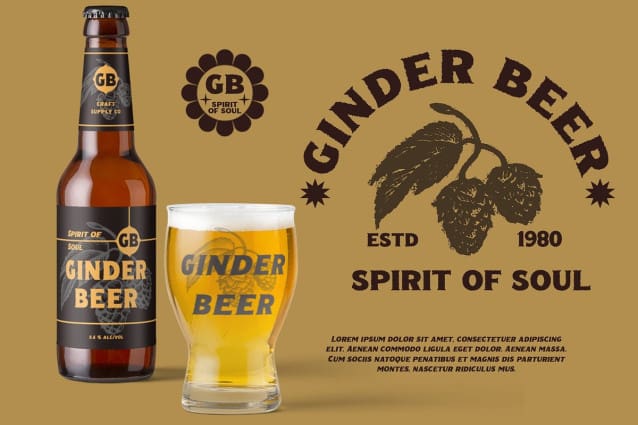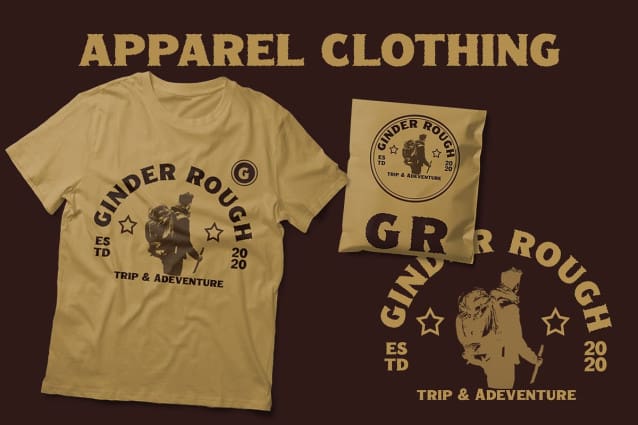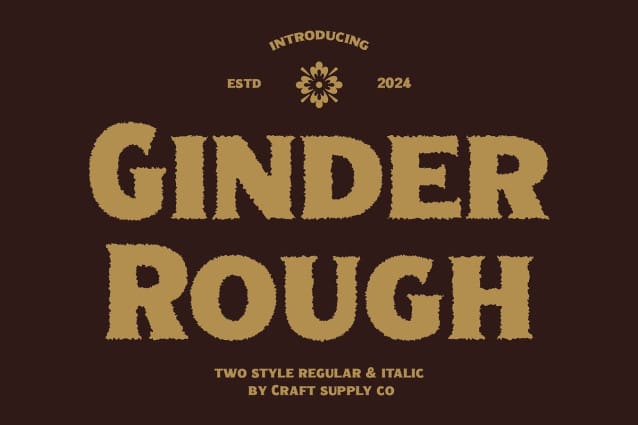
Ginder Rough Font
Ginder Rough Font: Vintage-Inspired Display Typeface. Bold Serif with Low Contrast Ginder Rough presents a bold serif design characterized by low contrast, lending it a robust and impactful appearance suitable for display purposes.
Rugged Charm with Rough Effects Infused with rough effects, This font exudes a rugged charm that evokes vintage aesthetics. Each letter bears subtle imperfections, adding character and authenticity to the typeface.
Vintage Vibes in Every Glyph Every glyph of Ginder Rough exudes vintage vibes, transporting viewers to a bygone era of classic typography. Its bold presence and rough texture make it an ideal choice for projects seeking a retro-inspired look.
Perfect for Vintage Display Projects Tailored for vintage-themed display projects, This font excels in various applications, including posters, packaging, and branding materials. Its bold and rough appearance ensures that your message is conveyed with impact and authenticity.
Embracing Vintage Authenticity This font captures the essence of vintage typography with its bold serif design and rough texture. Ideal for display projects requiring a touch of nostalgia, it adds character and authenticity to any design endeavor. Step into the world of This font and infuse your projects with timeless vintage charm.